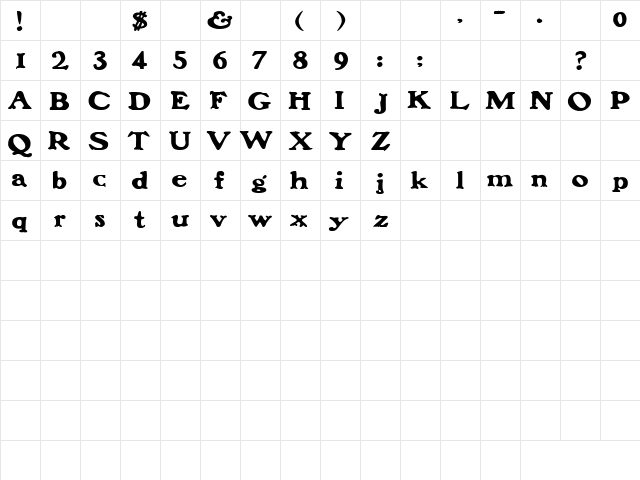
Cry Mary 1 Regular
Design Context for Cry Mary 1 Typeface
Cry Mary 1 is a composed and adaptable typeface that performs quietly and consistently across a wide range of design contexts.